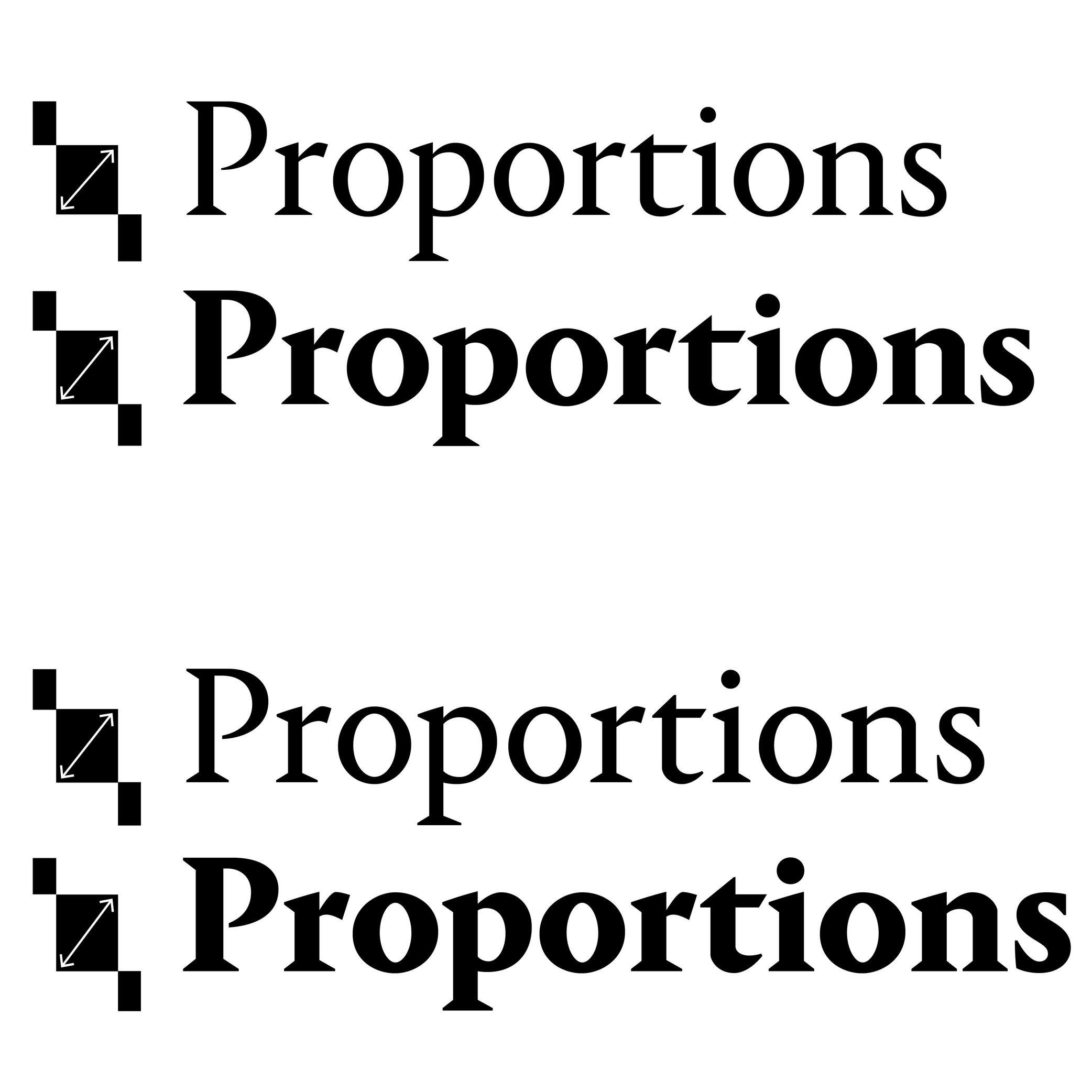
Many terms are borrowed from architecture or human and animal anatomy to designate and describe parts of letters and other characters. We even speak of type design anatomy.
In Latin type design, the eye refers to the ratio between the x-height and the other guidelines (ascenders and descenders).
A typeface is suited for text usage if it has a ratio slightly bigger between its eye to its ascenders and descenders, as this enhances the legibility of the letters.